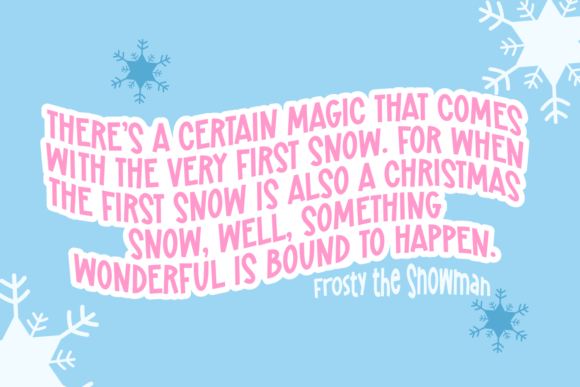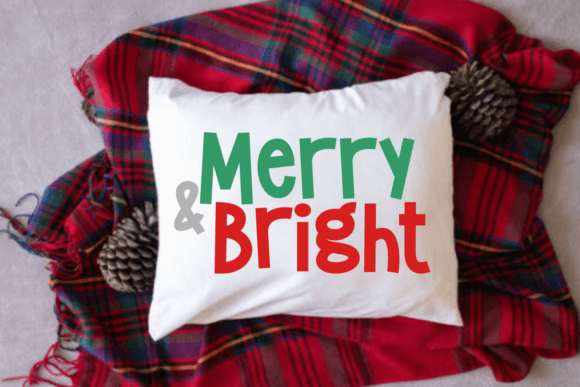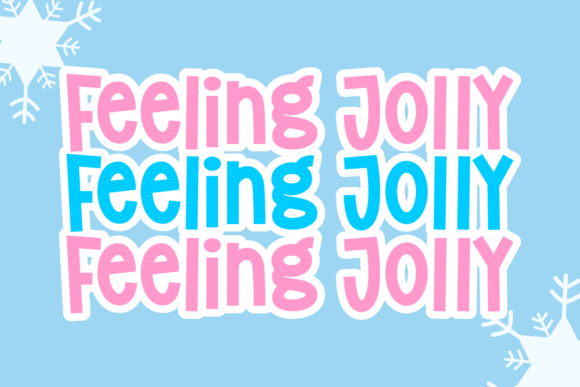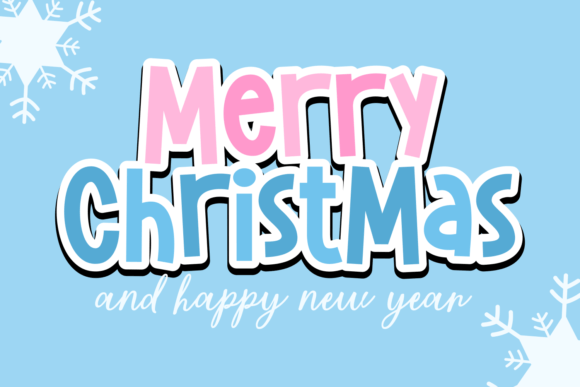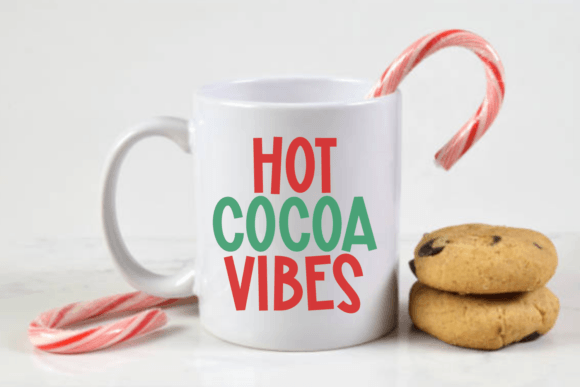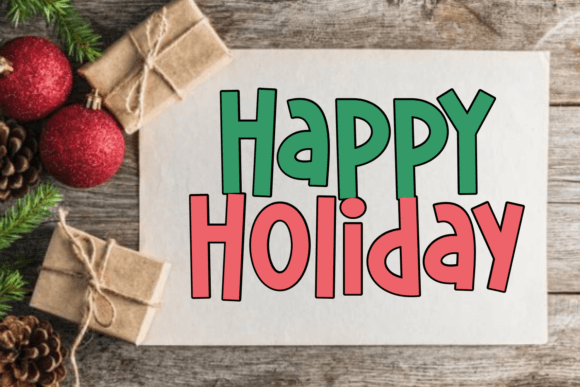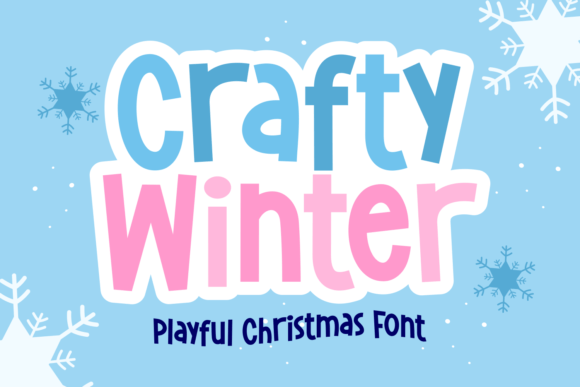
Crafty Winter Font: Add a Touch of Whimsy to Your Holiday Designs
As the winter season approaches, designers and crafters are on the lookout for the perfect font to add a festive touch to their holiday projects. If you’re searching for a font that exudes warmth, playfulness, and a dash of magic, look no further than Crafty Winter. This charming handwritten Christmas font is designed to bring a sense of joy and wonder to your designs, making it perfect for greeting cards, gift tags, and any project that calls for a dash of holiday cheer.
The Charm of Crafty Winter
Crafty Winter is a whimsical and festive font that captures the essence of the holiday season. Its handcrafted feel and quirky letterforms bring a sense of warmth and creativity to your text, making it feel like it was written with care by Santa’s very own elves. The font’s charming and playful design makes it perfect for a variety of projects, from holiday greeting cards and gift tags to festive posters and social media graphics.
Crafty Winter is a versatile font that is perfect for designers and crafters alike. Whether you’re creating holiday cards, gift tags, or other festive projects, this font is sure to add a touch of magic to your designs. Its whimsical and playful design makes it perfect for:
- Holiday greeting cards and invitations
- Gift tags and wrapping paper
- Festive posters and social media graphics
- Holiday-themed crafts and DIY projects
Key Features of Crafty Winter
Crafty Winter is a unique and special font that offers a range of features that make it perfect for holiday designs. Some of its key features include:
- Whimsical and playful handwritten design
- Handcrafted feel and quirky letterforms
- Perfect for holiday greeting cards, gift tags, and festive projects
Why Choose Crafty Winter?
There are many holiday fonts to choose from, but Crafty Winter stands out from the rest. Here are just a few reasons why:
- Unique and whimsical design that captures the essence of the holiday season
- Handcrafted feel and quirky letterforms that add a touch of warmth and creativity to your text
- Perfect for a variety of projects, from holiday cards to festive posters
- Easy to use and versatile
Tips for Using Crafty Winter
Here are a few tips for using Crafty Winter in your holiday designs:
- Use it to add a touch of whimsy to your holiday greeting cards and gift tags
- Pair it with other festive fonts and graphics to create a unique and eye-catching design
- Use it to create festive posters and social media graphics that are sure to grab attention
Crafty Winter is a charming and whimsical handwritten Christmas font that is perfect for adding a touch of holiday cheer to your designs. Its handcrafted feel and quirky letterforms bring a sense of warmth and creativity to your text, making it feel like it was written with care by Santa’s very own elves. Whether you’re a designer or crafter, Crafty Winter is a versatile and easy-to-use font that is sure to become a favorite in your holiday design arsenal.